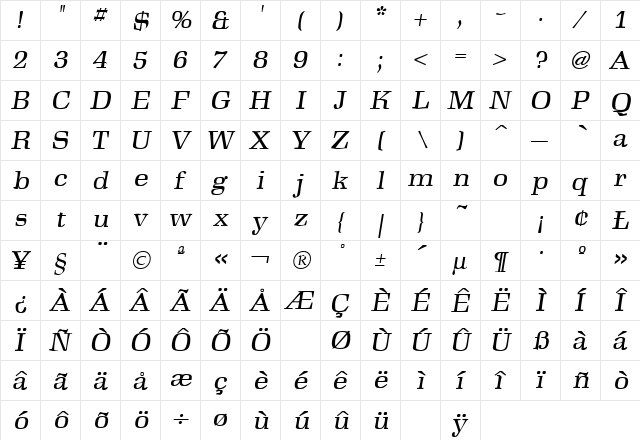
Antikva Margaret Italic
Design Context for Antikva Margaret Typeface
Antikva Margaret is a composed and adaptable typeface that performs quietly and consistently across a wide range of design contexts. The dynamic lean of this cut emphasises speed and emphasis in any layout.
Pro Tip: Try Antikva Margaret for annotation and caption copy alongside an upright companion — the contrast in angle creates a dynamic but ordered typographic system.